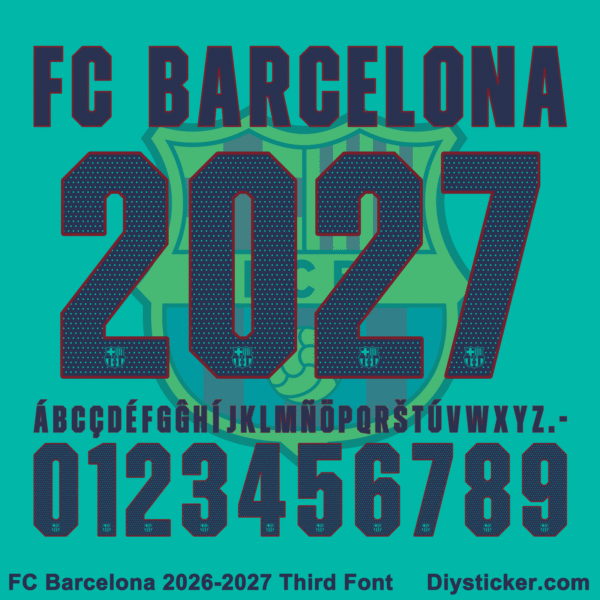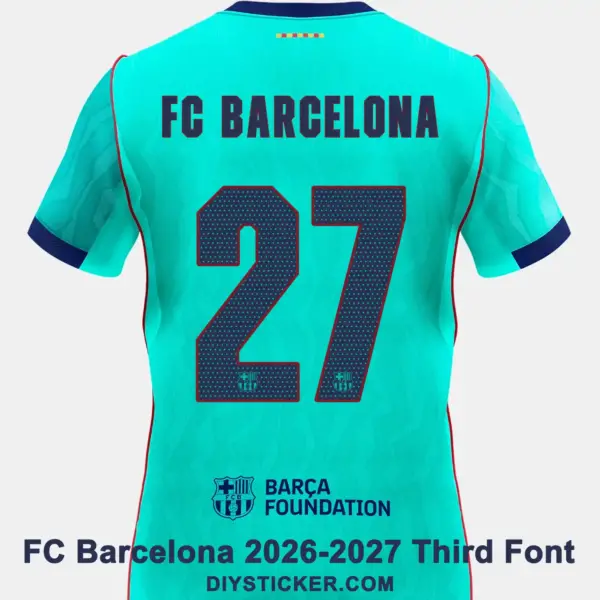
FC Barcelona 2026-2027 Third Font & Numbers Download
Bring the striking look of the Catalan giants to your custom kit creations! This digital typography file pack features the FC Barcelona 2026-2027 Third Font and Numbers in deep navy blue bordered by rich garnet red outlines, complete with an intricate dot-matrix halftone mesh texture and the official FCB crest integrated at the base of every digit.
Complete condensed uppercase alphabet, squad numbers 0-9, and specific diacritic accents.
Elevate Your Kit Customization with the FC Barcelona 2026-2027 Third Font
Upgrade your custom sports apparel catalog with the definitive third match-day typography for FC Barcelona! This digital typography product delivers the full FC Barcelona 2026-2027 third font style designed for domestic La Liga and European Champions League campaigns. Featuring tall, condensed block-style letterforms, bold numeric geometry outlined in contrasting red, an internal micro-perforated halftone dot pattern, and the official FC Barcelona crest embedded at the bottom of each squad number, this layout provides maximum contrast and breathability aesthetics against bright turquoise or mint third shirts.
Comprehensive Character Mapping
A-Z Uppercase Alphabet: Condensed, heavy block letters engineered for crisp legibility and uniform kerning across player nameplates.
0-9 Halftone-Pattern Squad Numbers: Bold navy-blue numeric glyphs lined with a garnet border, textured halftone micro-dots, and the official FCB crest neatly aligned at the base.
Special Accents & Diacritics: Complete set of punctuation marks and international accents (
Á,Ç,É,Ĝ,Ĥ,Ñ,Ö,Ř,Š,Ú, etc.) to accurately render names for star players.